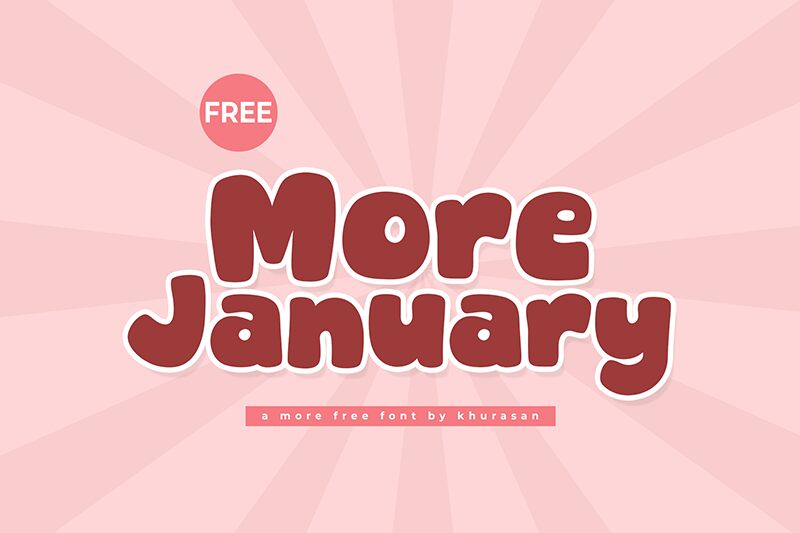
More January
More January font is a cartoon display font by Khurasan with a charismatic, bold letter design. The rounded corners and wide spacing produces a whimsical retro look that is fun and attractive to any reader. Take advantage of this free resource in your next design project to get unmatched results immediately!
This font suits quirky branding designs, T-shirt logos, social media posts, advertising material, children’s print material, greeting cards, posters, banners and more.